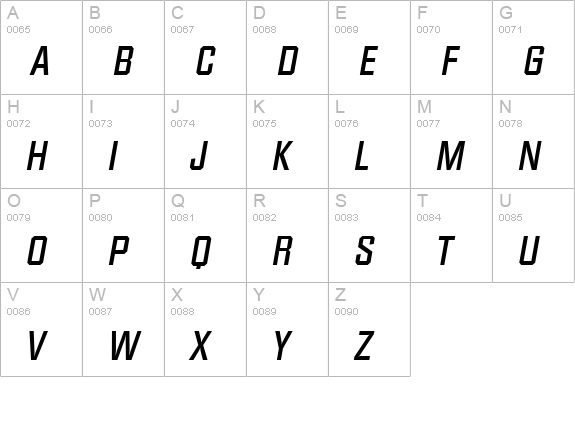
DiamanteSerial-Medium-Italic is a balanced, medium-weight, italic variant in the DiamanteSerial typeface family \xE2\x80\x94 well suited to sub-headlines, navigation, and balanced editorial work.
DiamanteSerial-Medium-Italic is a sleek and elegant font that combines modern design with a touch of sophistication. Its italic style adds a sense of movement and fluidity to any text, making it perfect for projects that require a dynamic and stylish look. This font is versatile and can be used for a wide range of design applications, from branding to editorial design. Best of all, DiamanteSerial-Medium-Italic is available for free download at FontsMarket.com. You can easily access this font and enhance your creative projects without any cost. Don't miss out on this opportunity to elevate your designs with this beautiful and distinctive typeface.